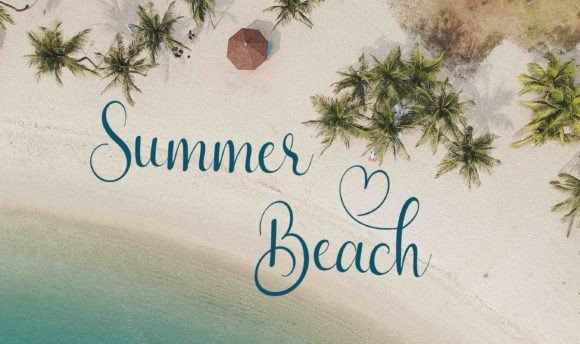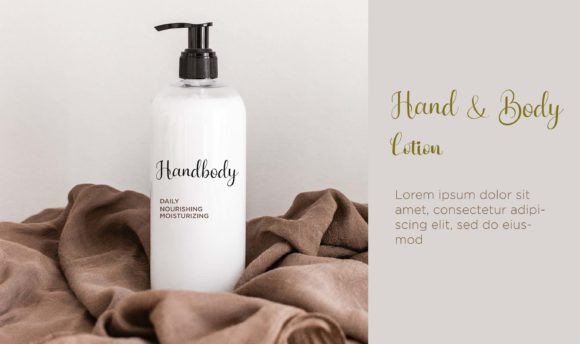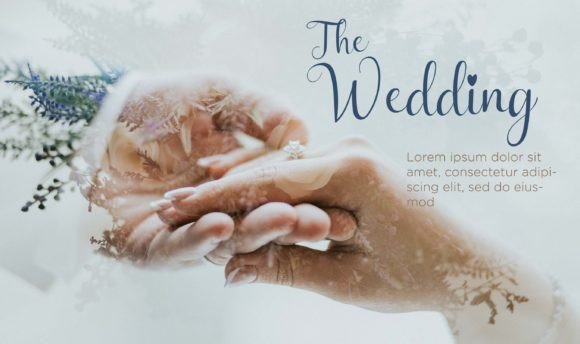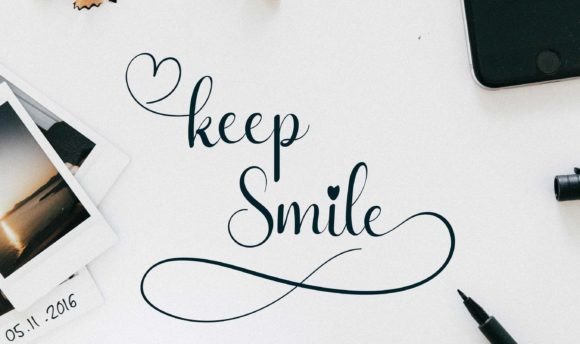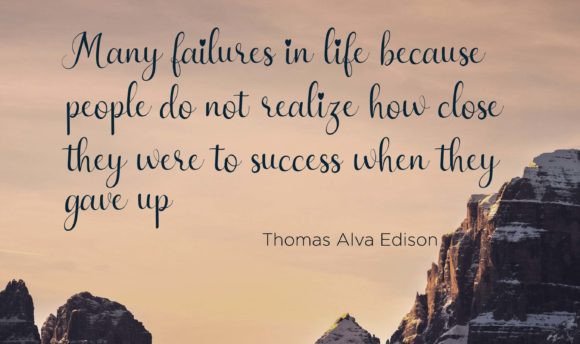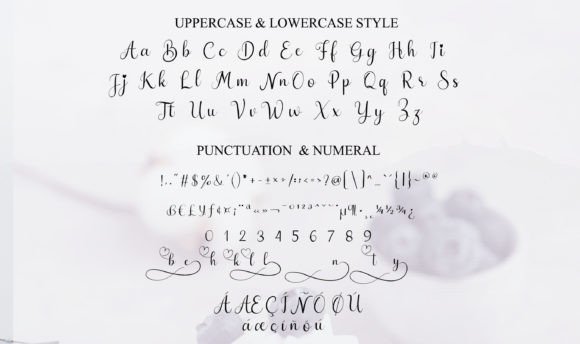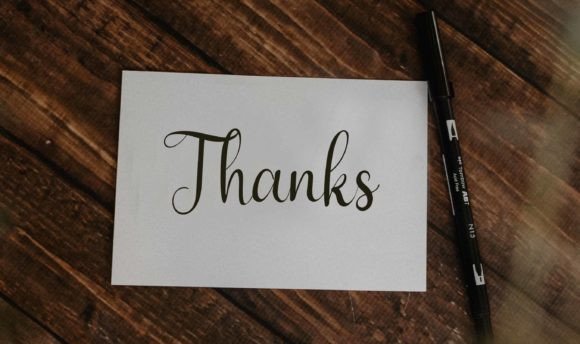
Beautiful Font
About Beautiful Font
Beautiful is a calligraphy script font that exudes elegance and charm, featuring beautiful alternative characters that add a touch of uniqueness. This font is crafted to bring attractiveness and a sense of sophistication to various designs and projects. Whether you’re working on invitations, labels, packaging, menus, logos, fashion, stationery, romantic novels, magazines, brand identity, or any other project designs, Beautiful complements the aesthetic with its attractive and elegant handwriting.
The allure of Beautiful extends to its suitability for special occasions and formal work. In invitations and greeting cards, Beautiful enhances the overall elegance, creating beautifully crafted pieces for weddings, events, or other special moments.
For branding and logo design, Beautiful becomes a standout choice. Its calligraphy script, with alternative characters, adds a touch of authenticity and a high level of sophistication, making it ideal for businesses seeking a memorable and elegant brand identity.
In the fashion and clothing industry, Beautiful can be used for labels, tags, and promotional materials. Its attractive and elegant script complements the fashion aesthetic, making the brand stand out.
For digital designs, social media, and online presence, Beautiful stands out with its attractive and elegant appeal. It brings a sense of sophistication to Instagram posts, websites, cartoons, YouTube content, and more, making your online content visually engaging.
In literature, including romantic novels, magazines, and books, Beautiful becomes a captivating choice. Its elegant calligraphy script adds a personal and charming touch to the text, enhancing the overall reading experience.
The versatility of Beautiful extends to posters, games, and various design projects where its attractive and elegant script ensures that it stands out and adds a touch of sophistication.
In summary, Beautiful is more than just a font; it’s a design tool that brings an attractive and elegant calligraphy aesthetic to your text. Whether used for formal invitations, branding, social media, literature, or other projects, Beautiful adds an elevated and charming touch, making your designs memorable and visually appealing.